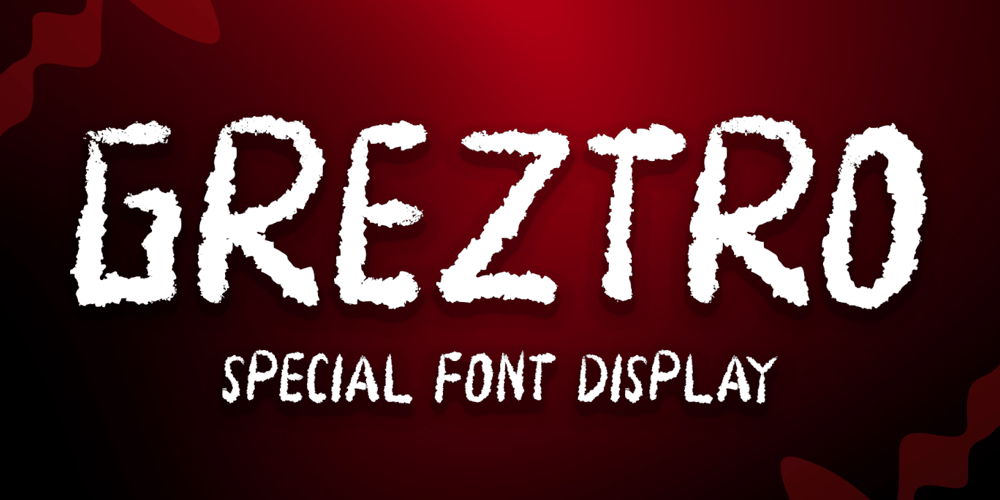
Greztro Font Family was designed by Isroni Yoga Prasetya and published by Yoga Letter. Greztro contains 1 styles and family package options. “Greztro” is a unique display font. This font is equipped with uppercase, lowercase, numerals, punctuation, and multilingual support. It is suitable for Cinco de Mayo, Father’s Day, Halloween, Christmas, stickers, posters, banners, branding, and others.